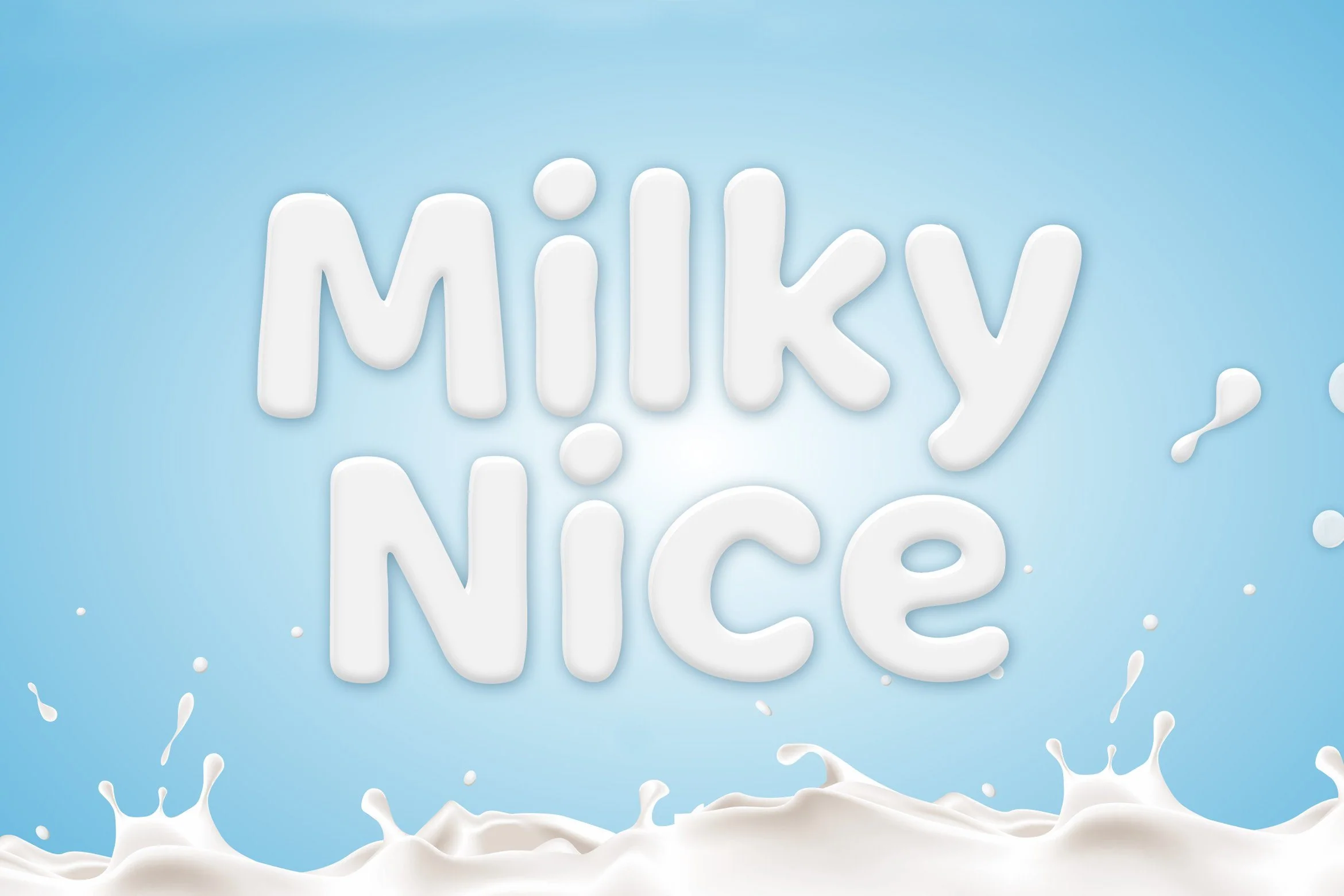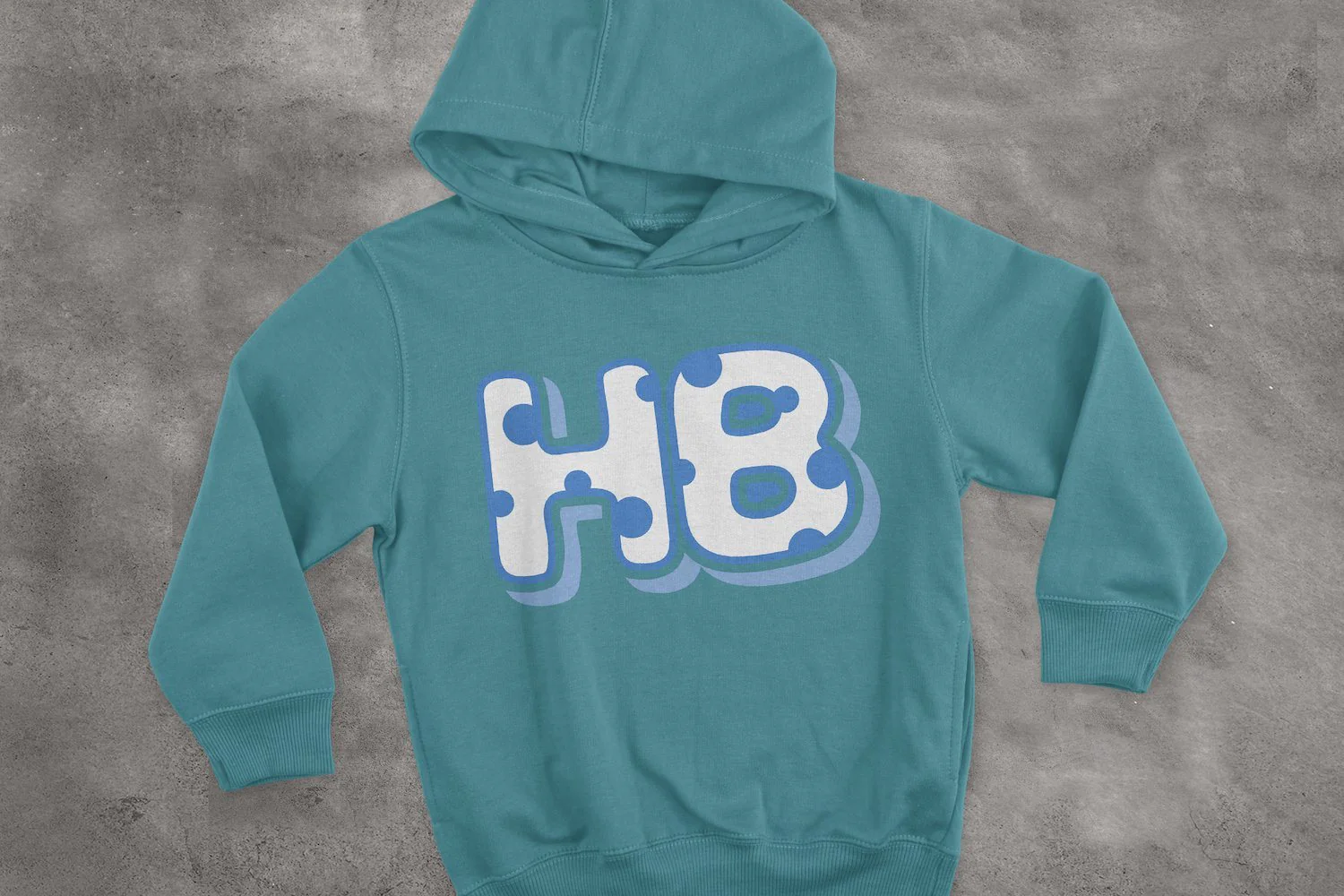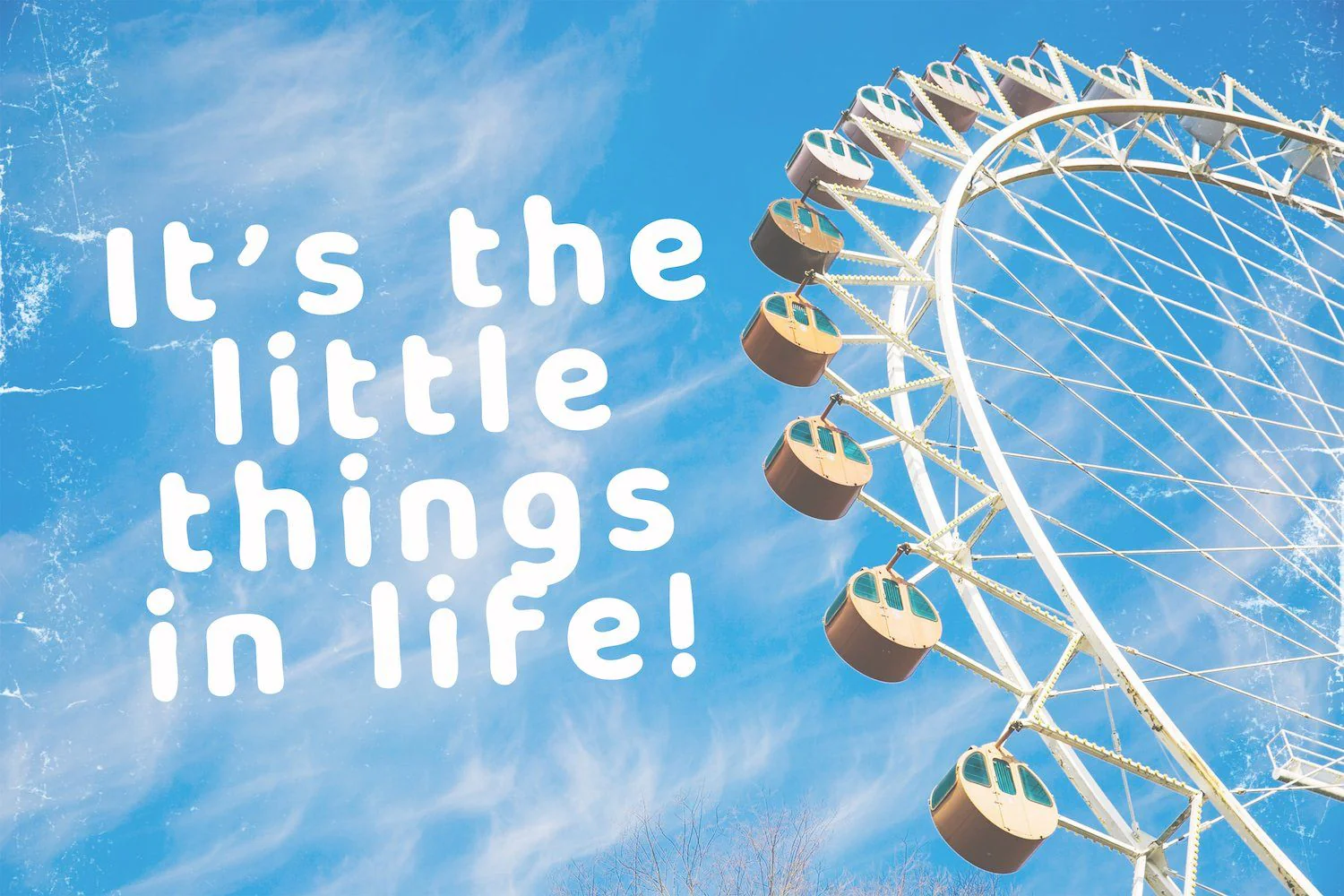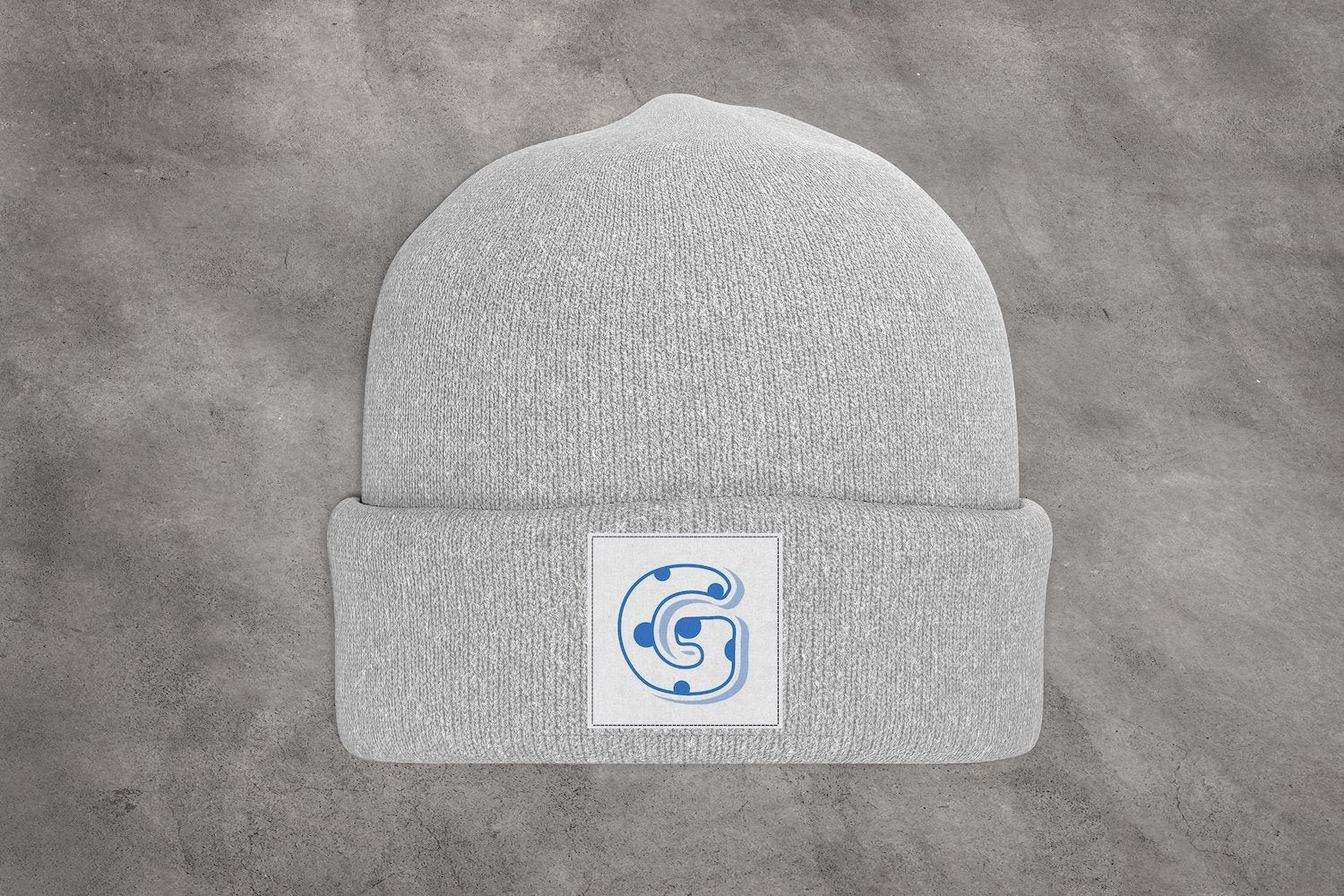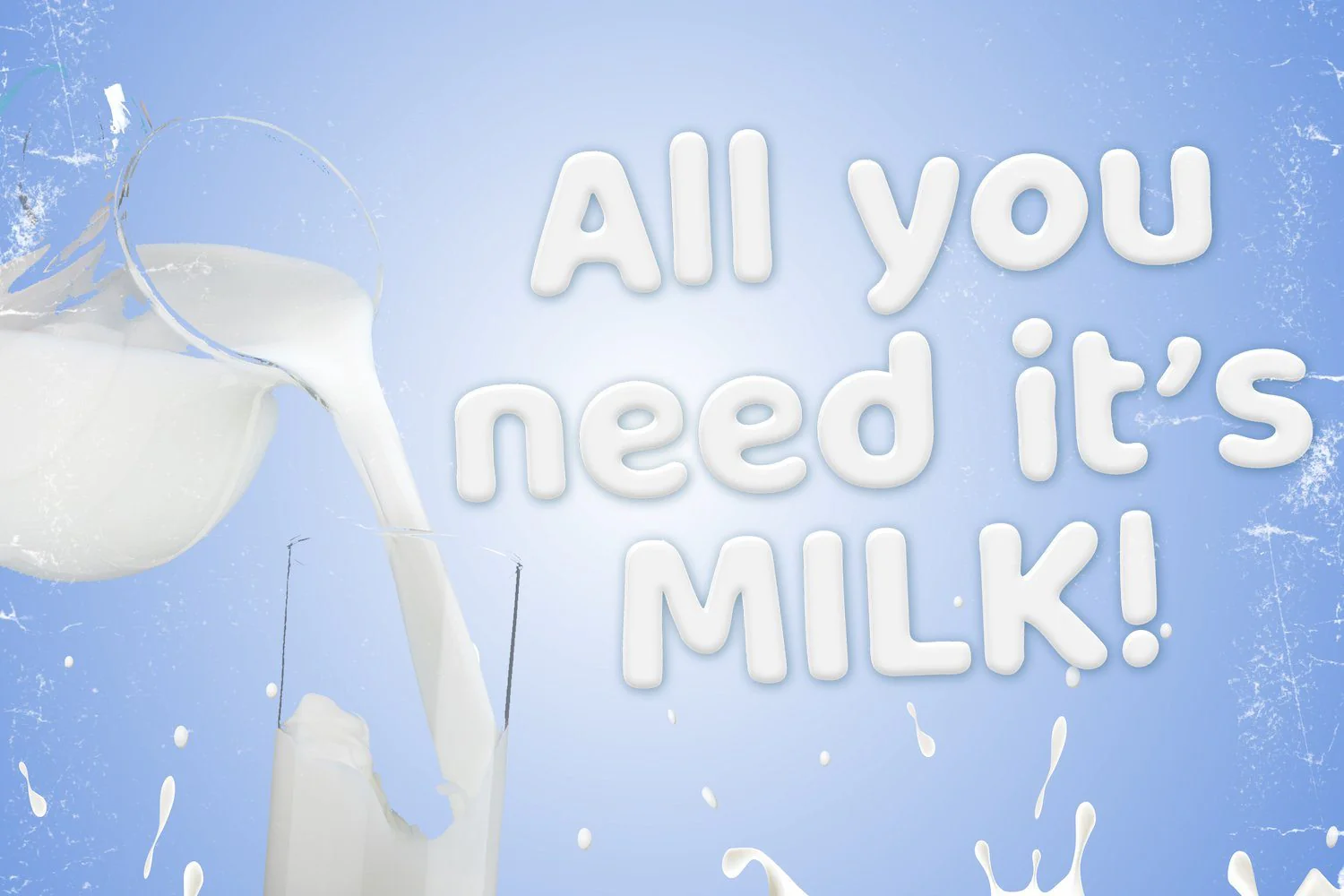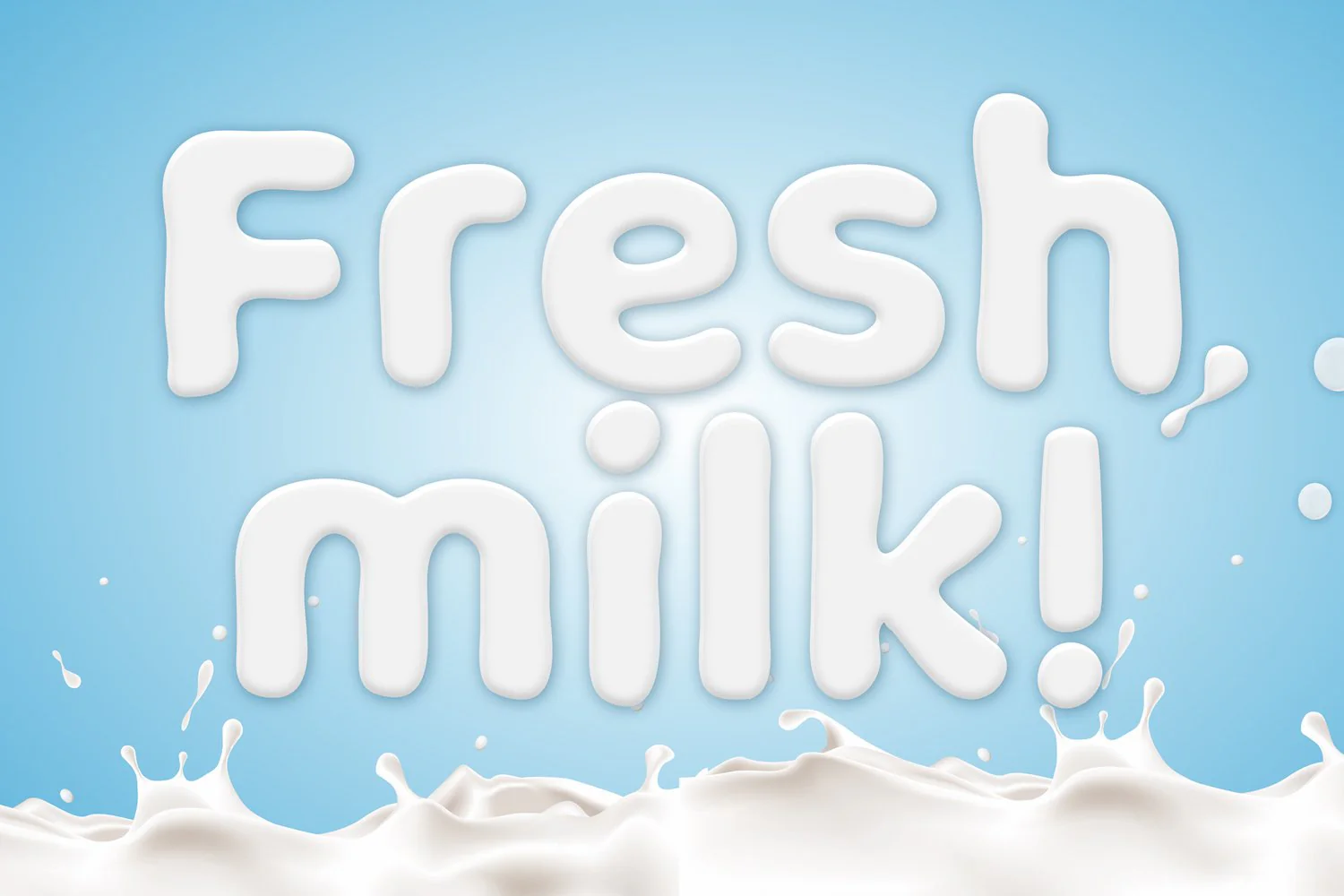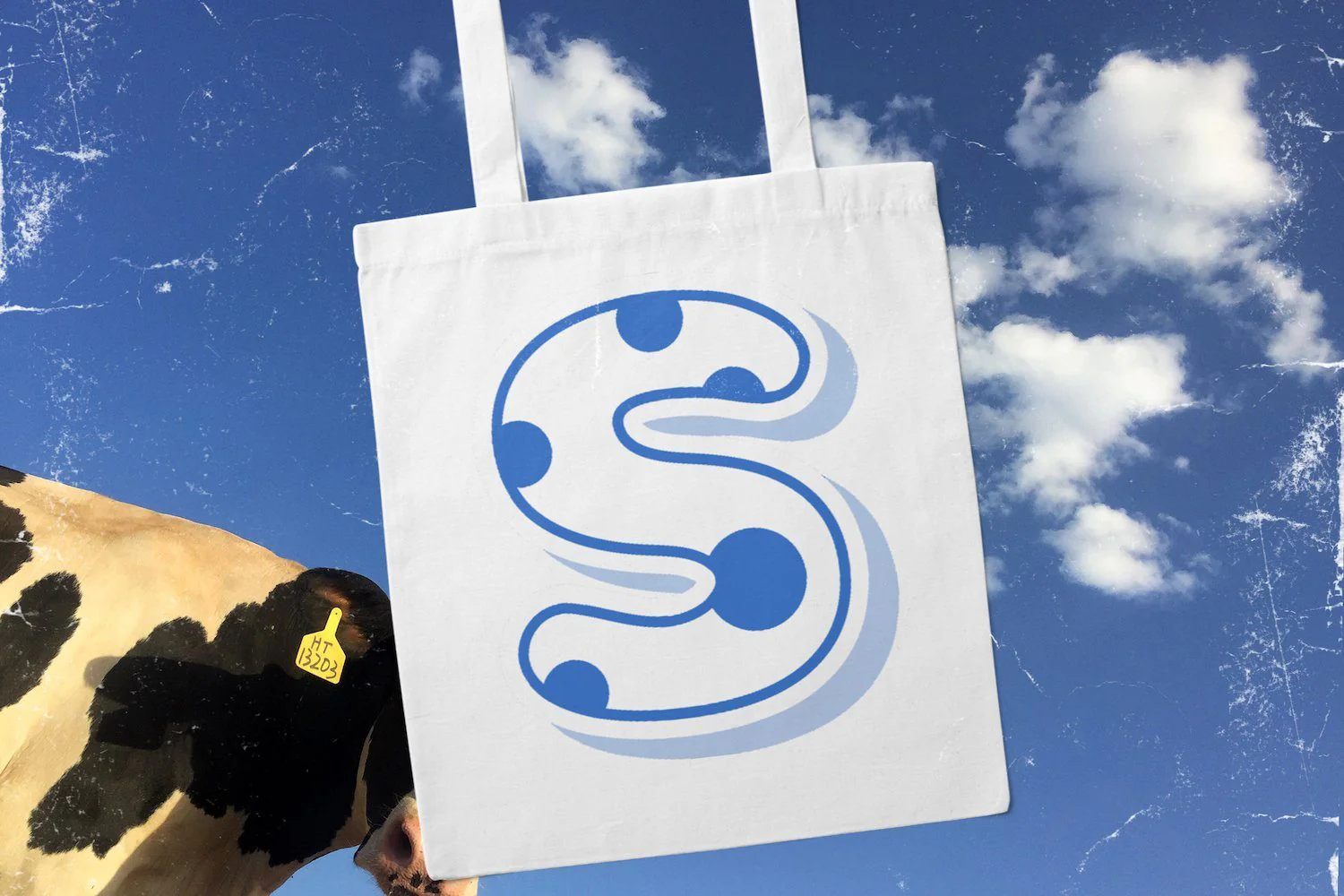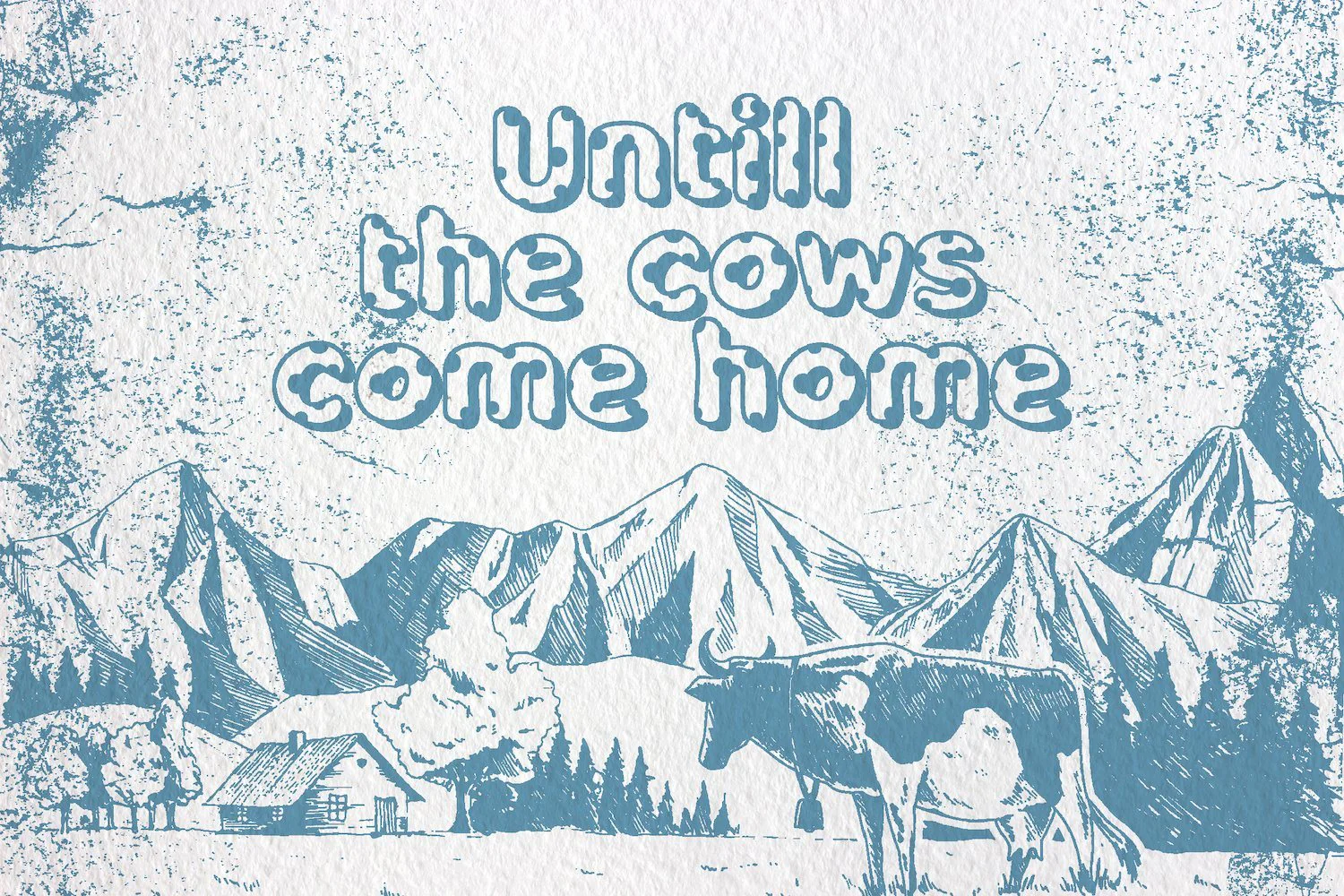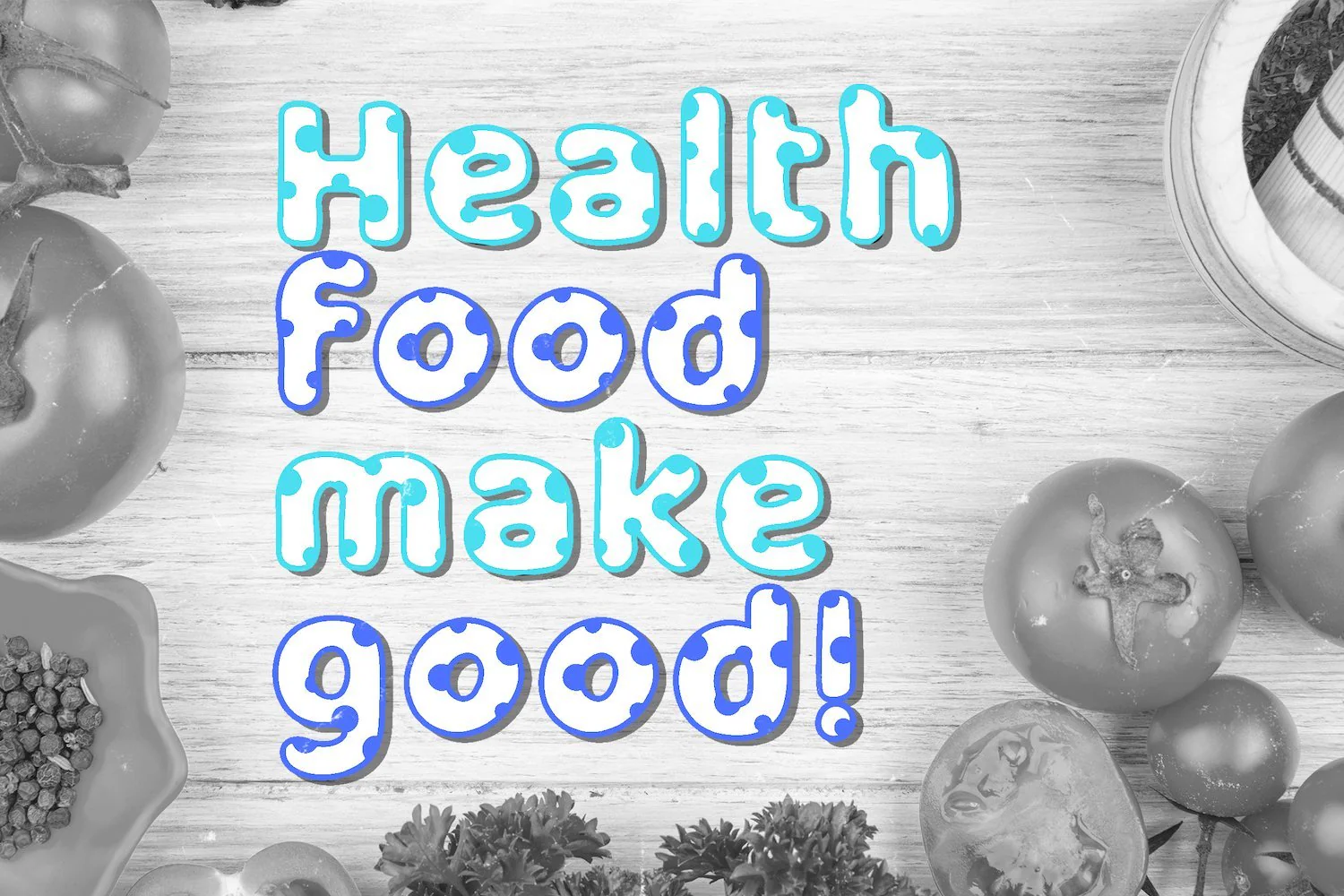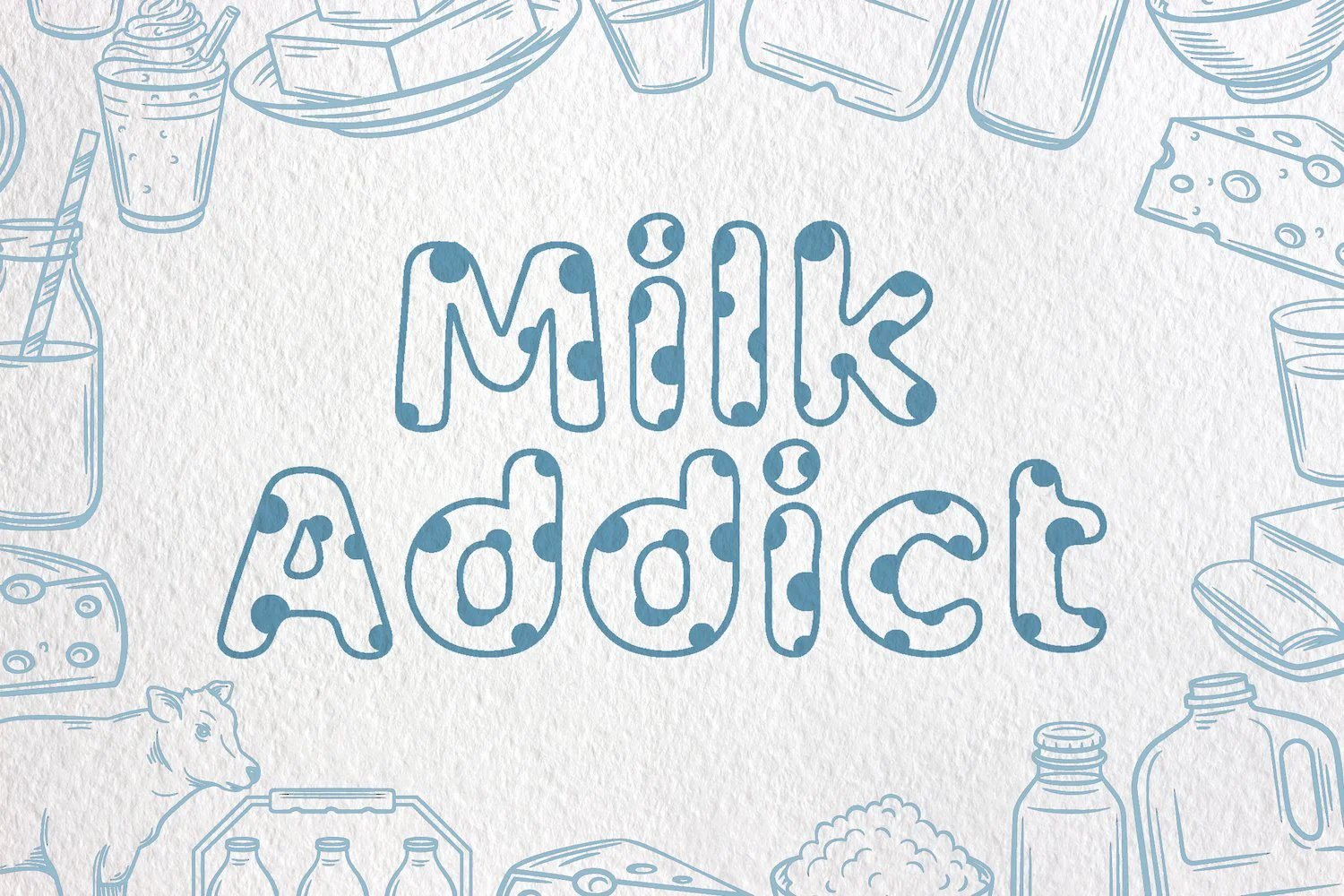
Milky Nice - Playful Display Typeface
Introducing Milky Nice - Playful Display Typeface
Milky Nice is a sweet and chunky lettered display font. Its friendly feel makes this font incredibly versatile, fitting a wide range of contexts. Add it to your creative ideas and notice how it makes them stand out!
Introducing Milky Nice - Playful Display Typeface
Milky Nice is a sweet and chunky lettered display font. Its friendly feel makes this font incredibly versatile, fitting a wide range of contexts. Add it to your creative ideas and notice how it makes them stand out!